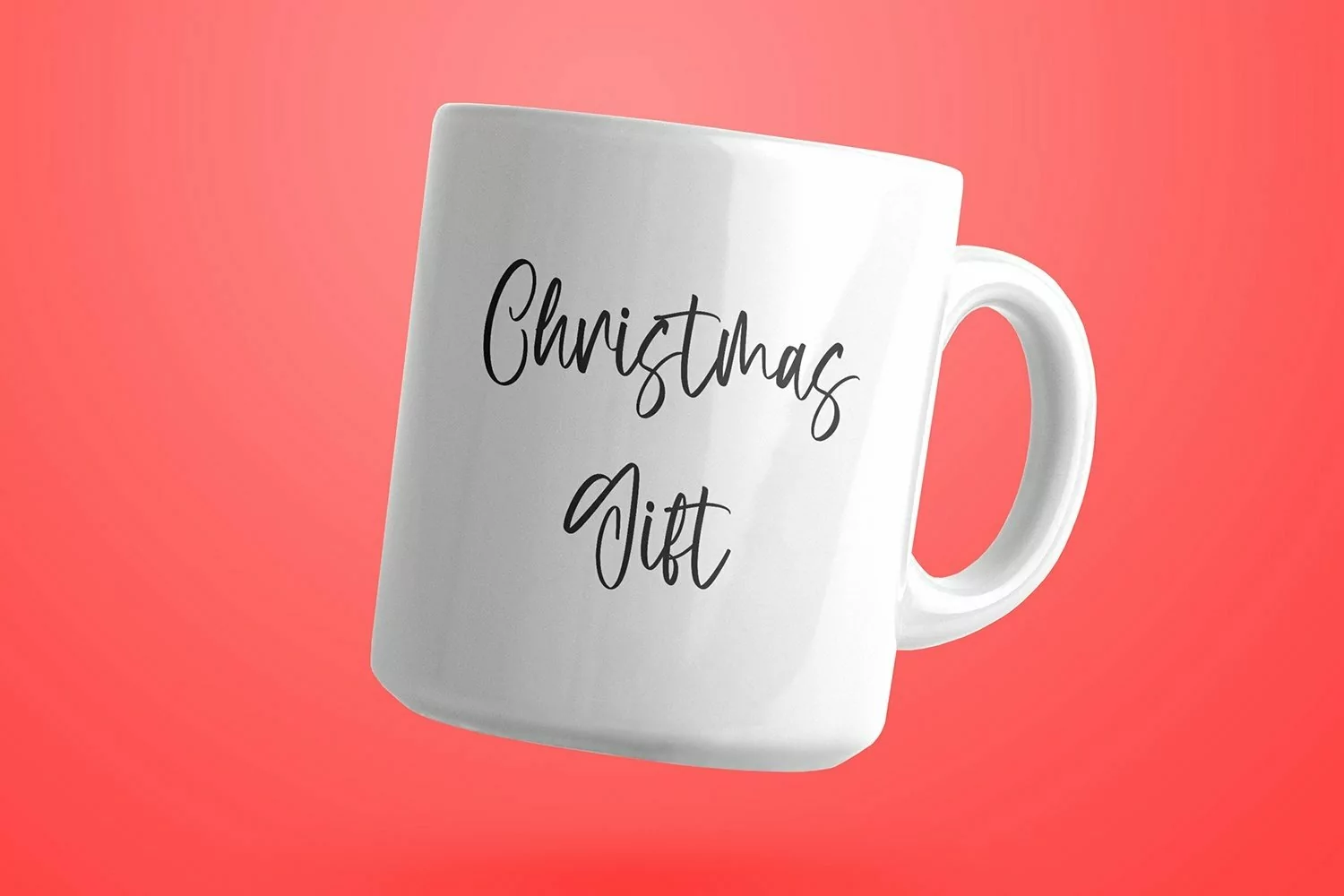
Web Font Butterball - Christmas Display Font that has a distinctive character that is very thick and elegant to use
Butterball is a relaxed and flowing Calligraphy Font. Incredibly versatile, this font fits a wide pool of designs, elevating them to the highest levels. Add this font to your favorite creative ideas and notice how it makes them come alive!
Butterball